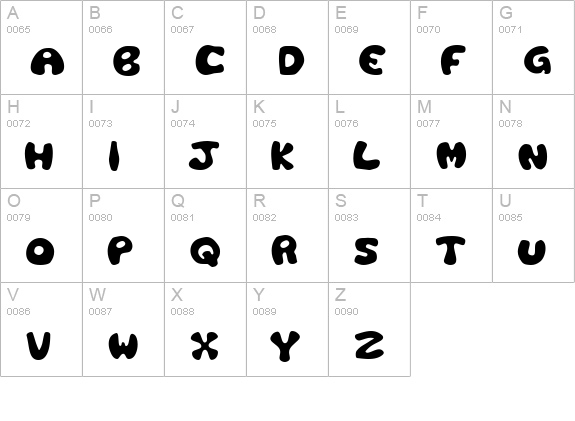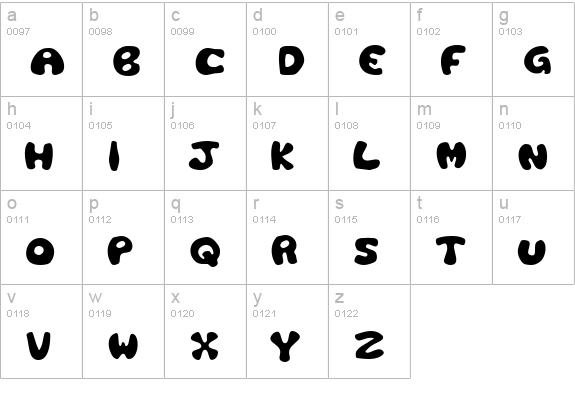
Introducing Plastic Tomato font, a quirky and playful typeface that brings a fun and unique touch to any design project. This font features bold, rounded letters with a slightly irregular appearance, giving it a hand-drawn and whimsical feel. Perfect for adding a pop of color and personality to your designs, Plastic Tomato font is sure to stand out and make a statement. Best of all, Plastic Tomato font is available for free download at FontsMarket.com. Whether you're working on a poster, logo, website, or any other creative project, this font is a versatile choice that will add a touch of charm and creativity. Download Plastic Tomato font today and let your imagination run wild with this delightful and eye-catching typeface.